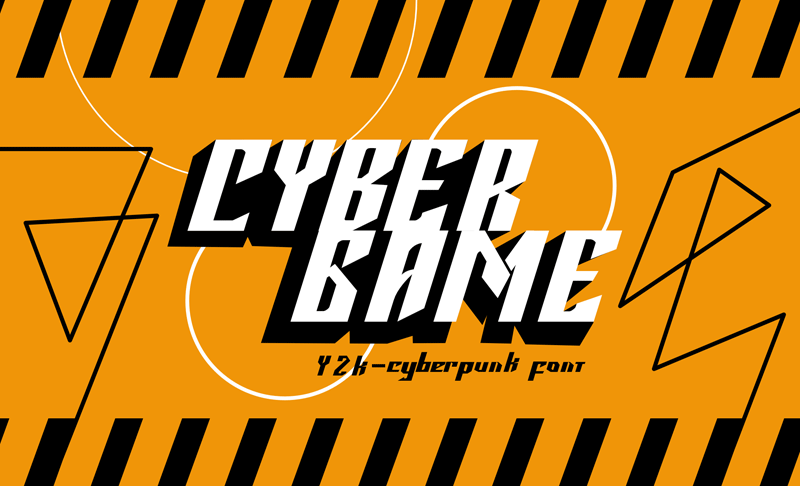
Font name: | Cybergame |
Author: | Mohamad Farhan Ramadhan |
Note by Mohamad Farhan Ramadhan | |
Cybergame is a futuristic style featuring shameless, fearless, and unique glyphs. Due to its unicity, this font will offer your project ideas an unimaginable touch. _________________________________________________________ By installing or using this font, you are agree to the Product Usage Agreement: - This font is already FULL VERSION and ONLY for PERSONAL USE. NO COMMERCIAL USE ALLOWED! - Here is the link to purchase COMMERCIAL LICENSE: https://fontbundles.net/mofr24-work/2416150-cybergame - If you need a CUSTOM LICENSE or CORPORATE LICENSE please contact us at: mofr24.artwork@gmail.com - Any donation are very appreciated. Our Paypal account for donation : https://paypal.me/avieora Please visit our store for more amazing fonts : https://www.creativefabrica.com/ref/401336/ https://fontbundles.net/mofr24-work |